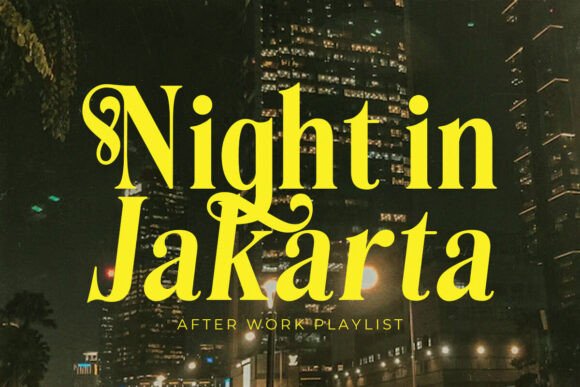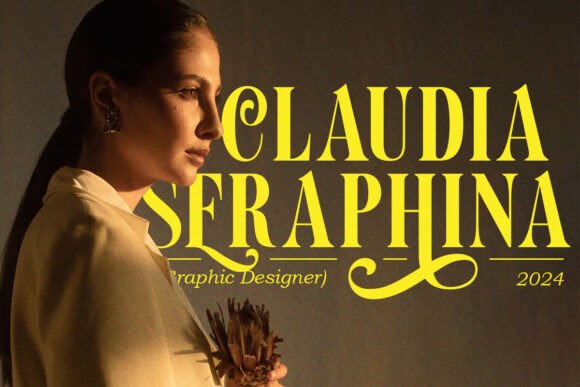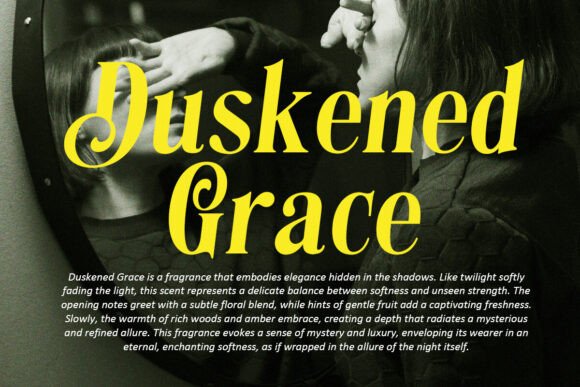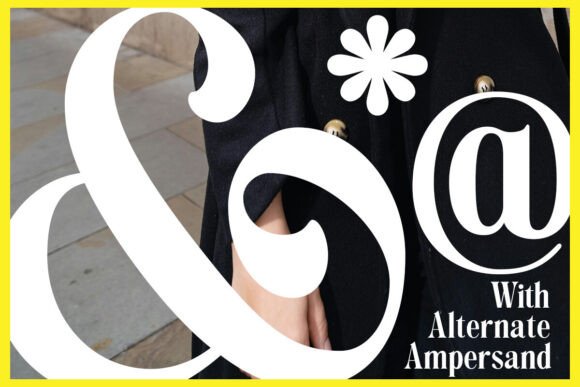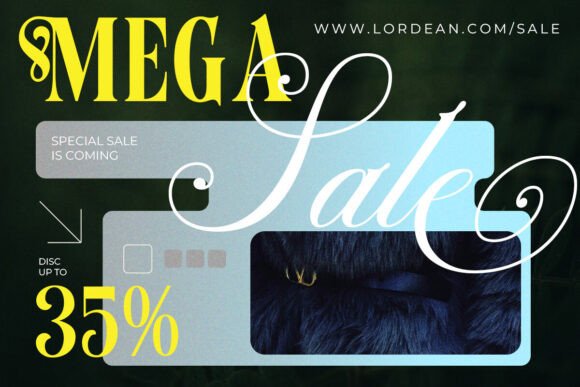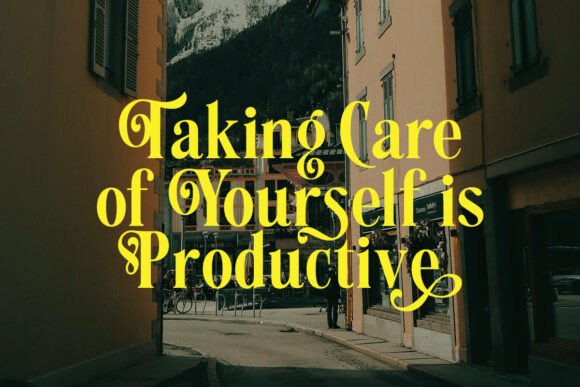
Introduction to Montore Font
Montore is a refined and stylish serif font that exudes elegance and timeless appeal.
With its bold yet graceful letterforms, intricate alternates, and smooth ligatures, this typeface is perfect for high-end branding, luxury packaging, editorial design, and elegant invitations .